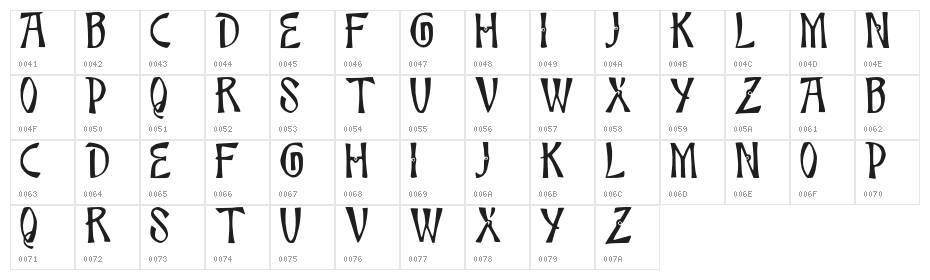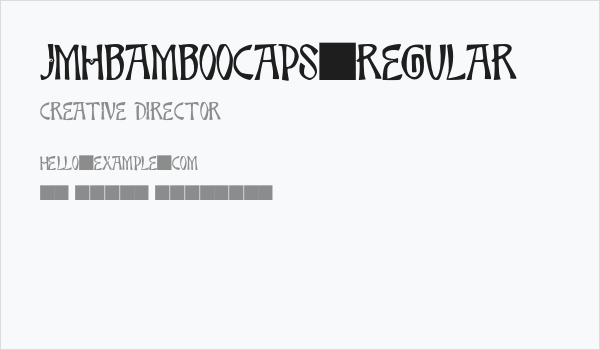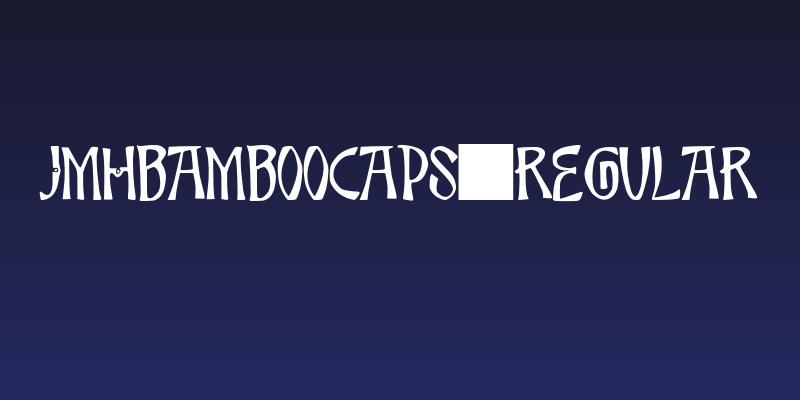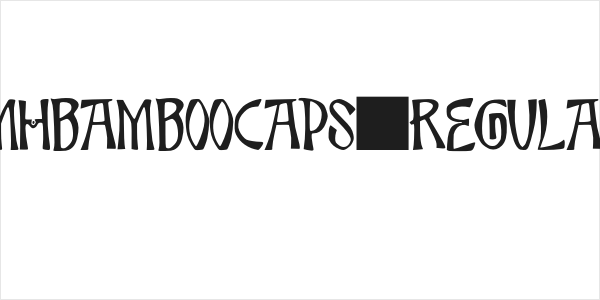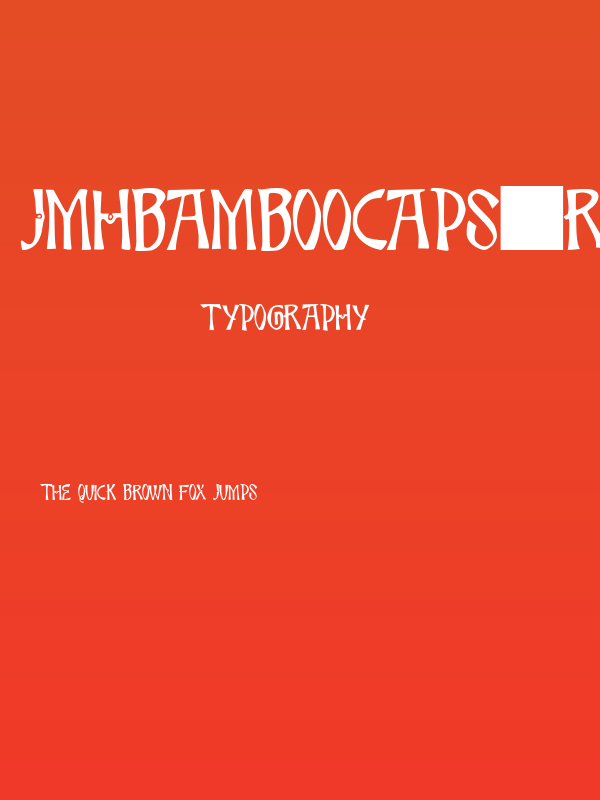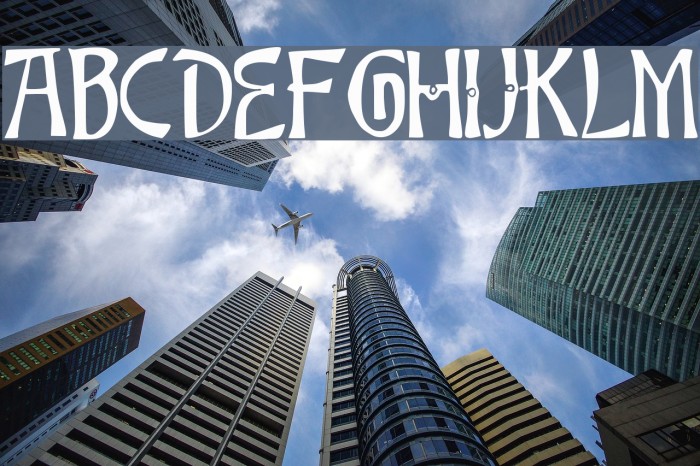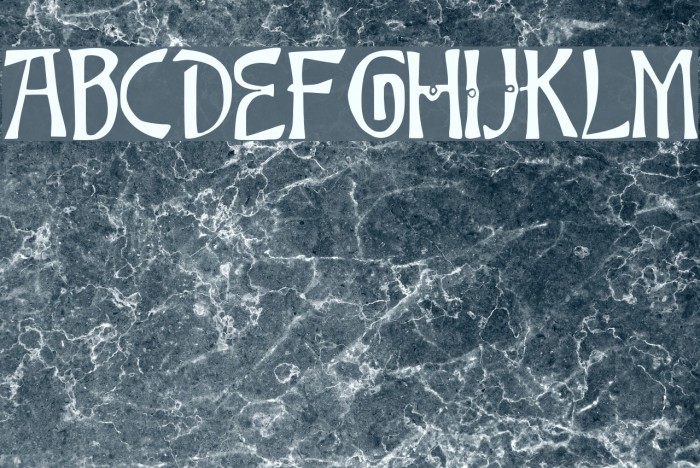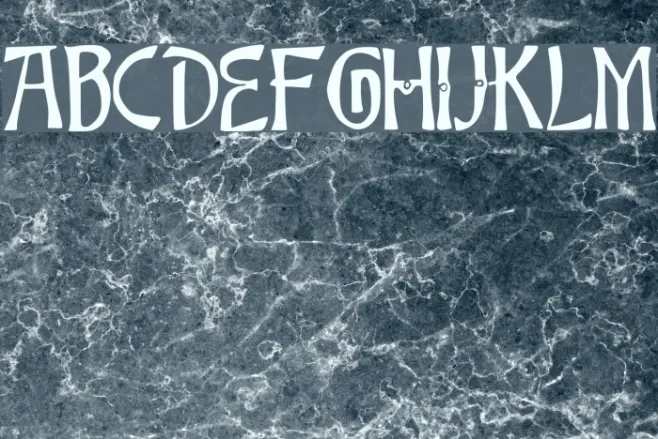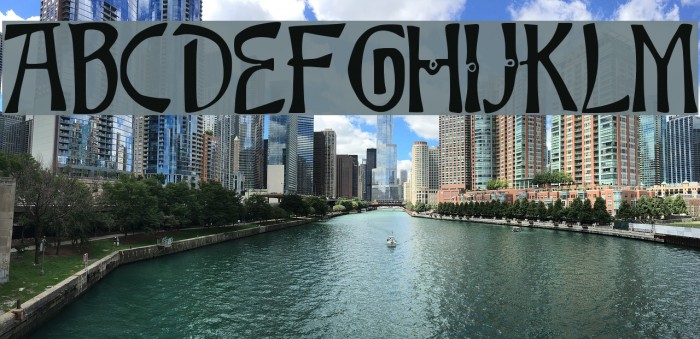
JMHBambooCaps-Regular Font
JMHBambooCaps-Regular Description
This font features a playful and whimsical design, reminiscent of bamboo stalks with its uneven, organic lines and slightly irregular shapes. The characters have a unique, hand-drawn quality that adds a sense of fun and creativity. The uppercase letters are bold and distinctive, with some characters incorporating subtle curves and twists that enhance the bamboo-like appearance. The font's overall style is decorative, making it ideal for projects that require a touch of nature-inspired artistry. Its unique design elements make it stand out, providing a visually engaging experience.
| Proposed Projects | Ideal for eco-friendly branding, children's book covers, nature-themed posters, and creative packaging designs. |